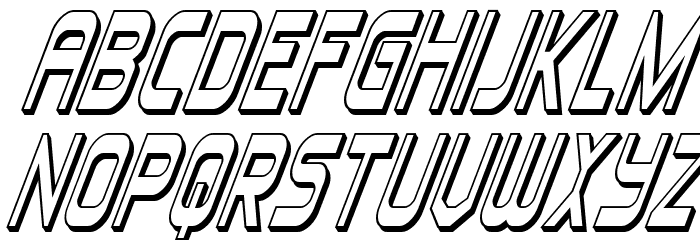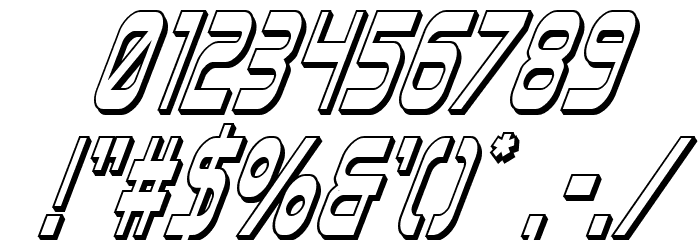
Blizzard Shaft 3D Super-Italic Font
This font features a bold, three-dimensional design with a strong italic slant, creating a dynamic and energetic appearance. The characters are outlined, giving them a hollow look that enhances the 3D effect. The angular and geometric shapes of the letters contribute to a modern and futuristic style. The uppercase and lowercase letters maintain a consistent style, with numerals and special characters following the same design principles. The font's structure is clean and legible, making it suitable for attention-grabbing headlines or titles.
A bold, 3D italic font with a modern, outlined design.
- Proposed Projects: Ideal for use in posters, logos, video game graphics, and any project requiring a futuristic or dynamic look.